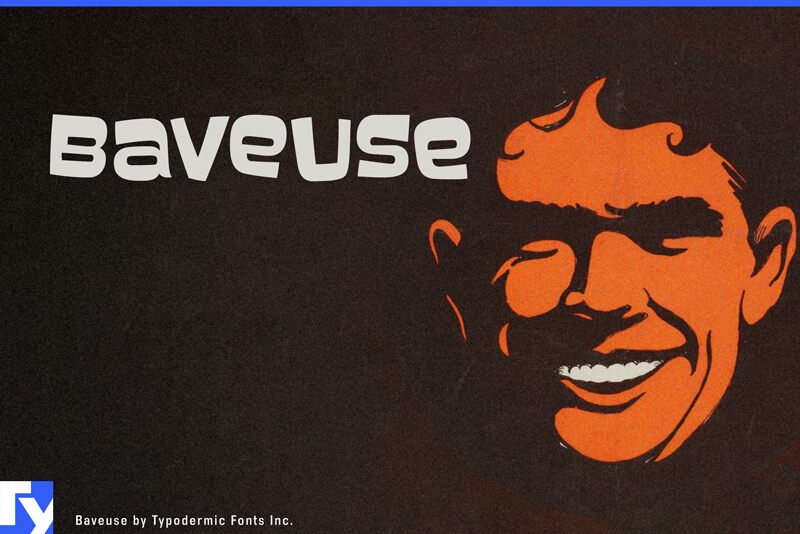
Baveuse, a captivating display font crafted by Typodermic Fonts, exudes a delightful, lighthearted charm. This quirky, 3D cartoon-inspired typeface boasts a bold, expanded silhouette that commands attention. Its letter variants, automatically jumbled in OpenType-aware programs, lend a natural, organic flow to the design, evoking a sense of playfulness and whimsy.
Baveuse's distinctive style makes it an excellent choice for a variety of design projects, from vibrant headlines and attention-grabbing logos to playful branding and energetic packaging. Its bold, expressive personality effortlessly elevates any design, adding a touch of fun and personality that is sure to captivate audiences.